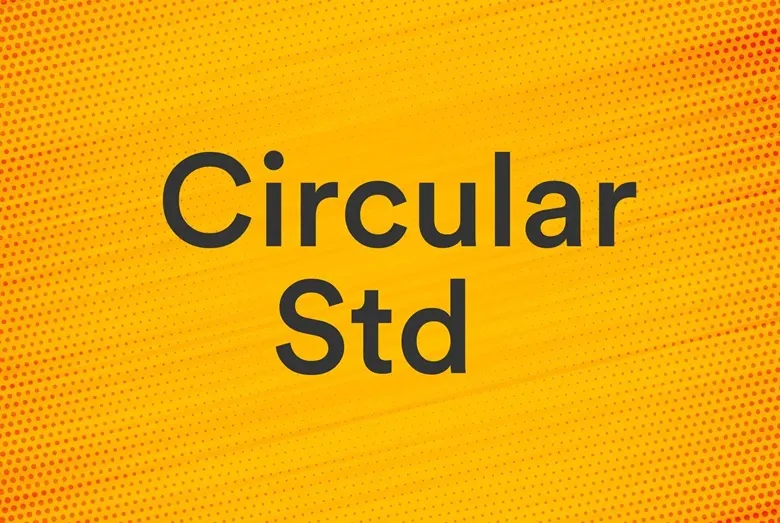
Circular Std is a original humanist sans serif typeface from Lineto which combines geometric and organic shapes into its forms.. It is a font with geometric structure and no serif but it has a very strong type. You should use it for websites, prints, and etc. Circular Std supports Latin letters and many Cyrillic, Greek and other alphabets, as well as Hangul.